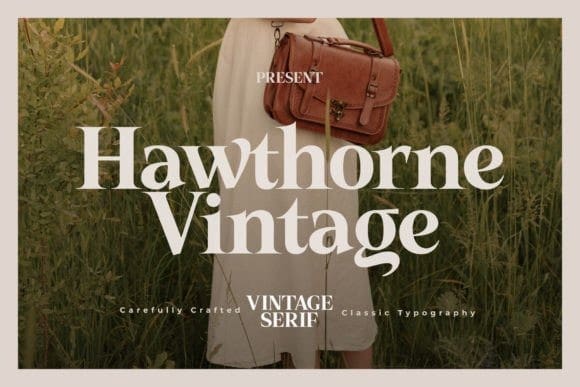
Hawthorne Vintage Font
Hawthorne Vintage Serif Font, a font that whispers timeless elegance and nostalgia into every letter. Inspired by the classic serifs of the past, this font effortlessly blends vintage charm with modern sophistication. Its graceful curves, meticulously crafted details, and subtle serifs make it the perfect choice for projects that demand a touch of refinement.
Embrace the allure of the past and elevate your design projects with Hawthorne Vintage Serif, where timeless beauty meets contemporary creativity. Add this font to your collection and let its exquisite craftsmanship tell your story.